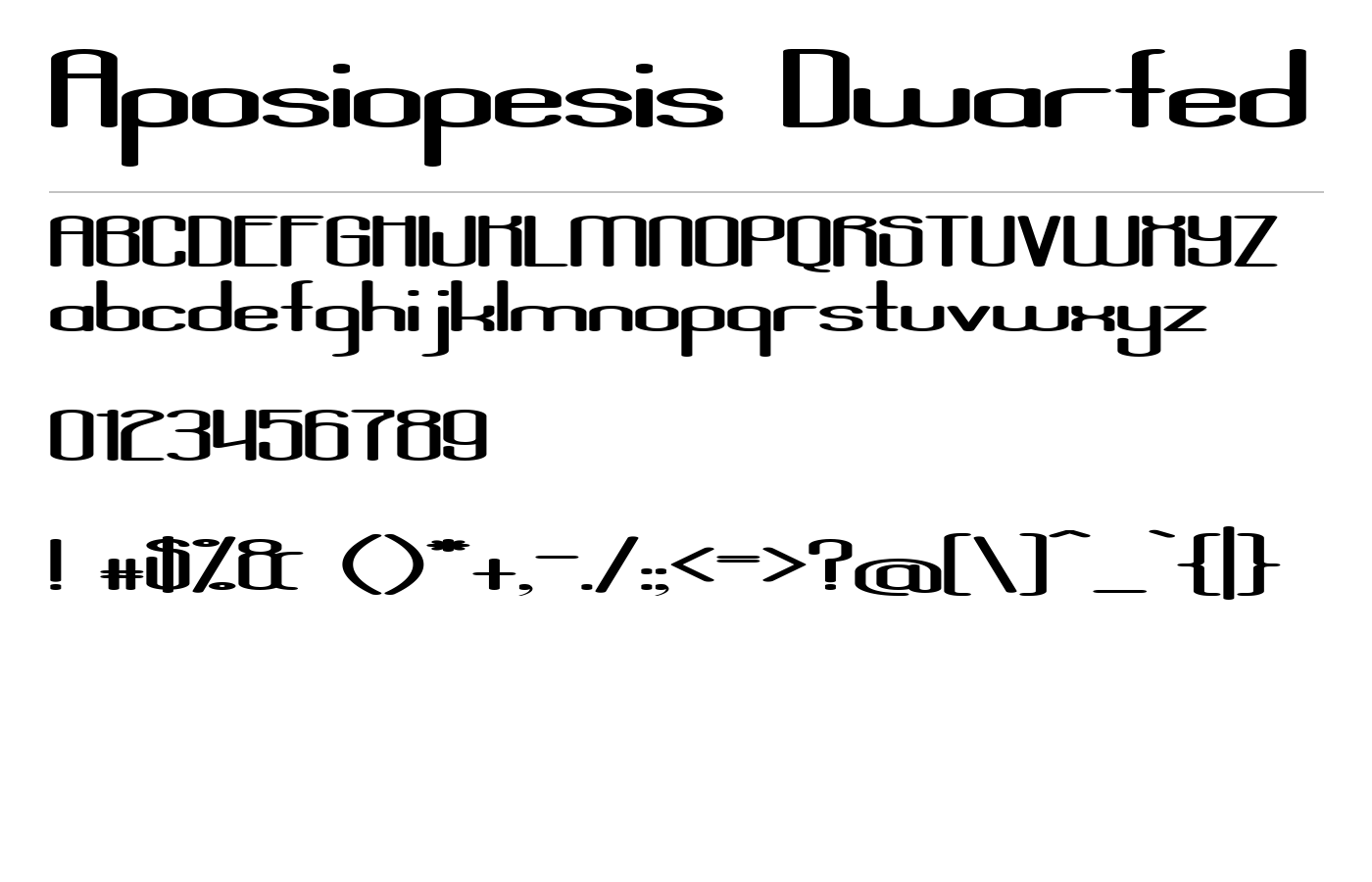
Aposiopesis Dwarfed is a narrow, condensed sans serif font with a modern and slightly geometric feel, characterized by its tall x-height and uniform stroke weight. Its unique, quirky letterforms and smooth curves make it well-suited for tech-forward branding, futuristic projects, and eye-catching headlines where space is limited but style is key. This font works best in display uses like logos, posters, and digital interfaces that want to convey innovation with a clean and distinctive vibe.
Aposiopesis Dwarfed Font
About Aposiopesis Dwarfed Font